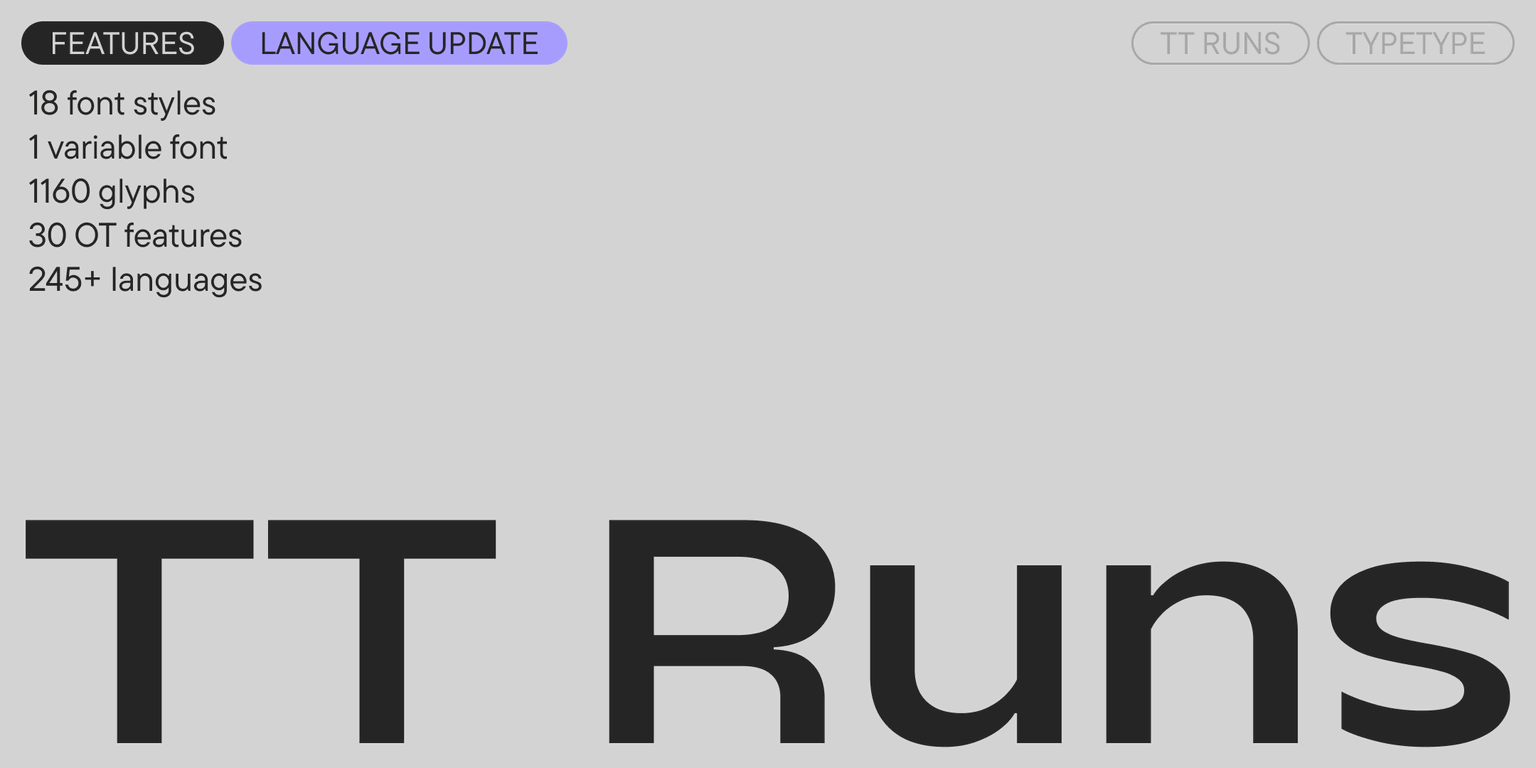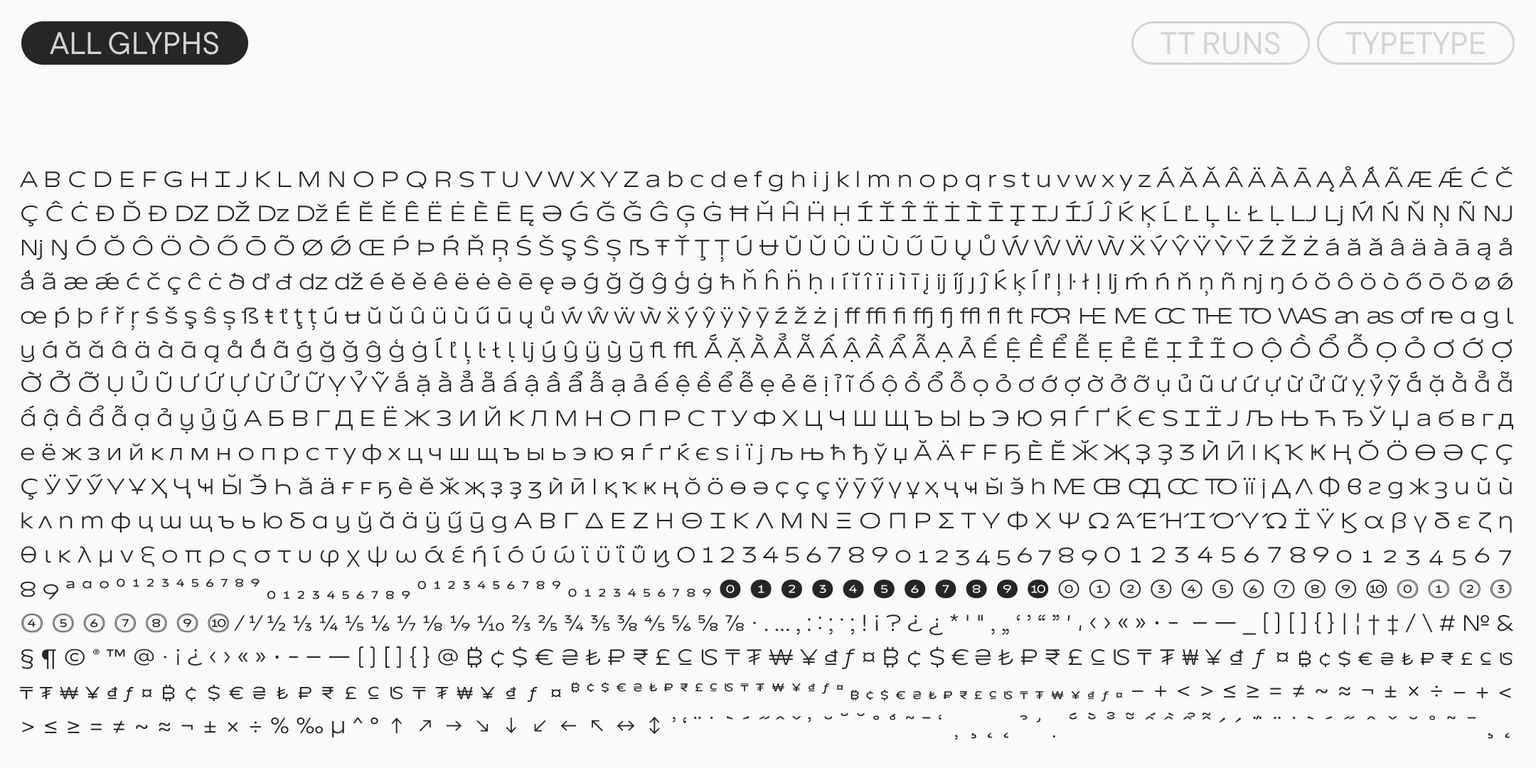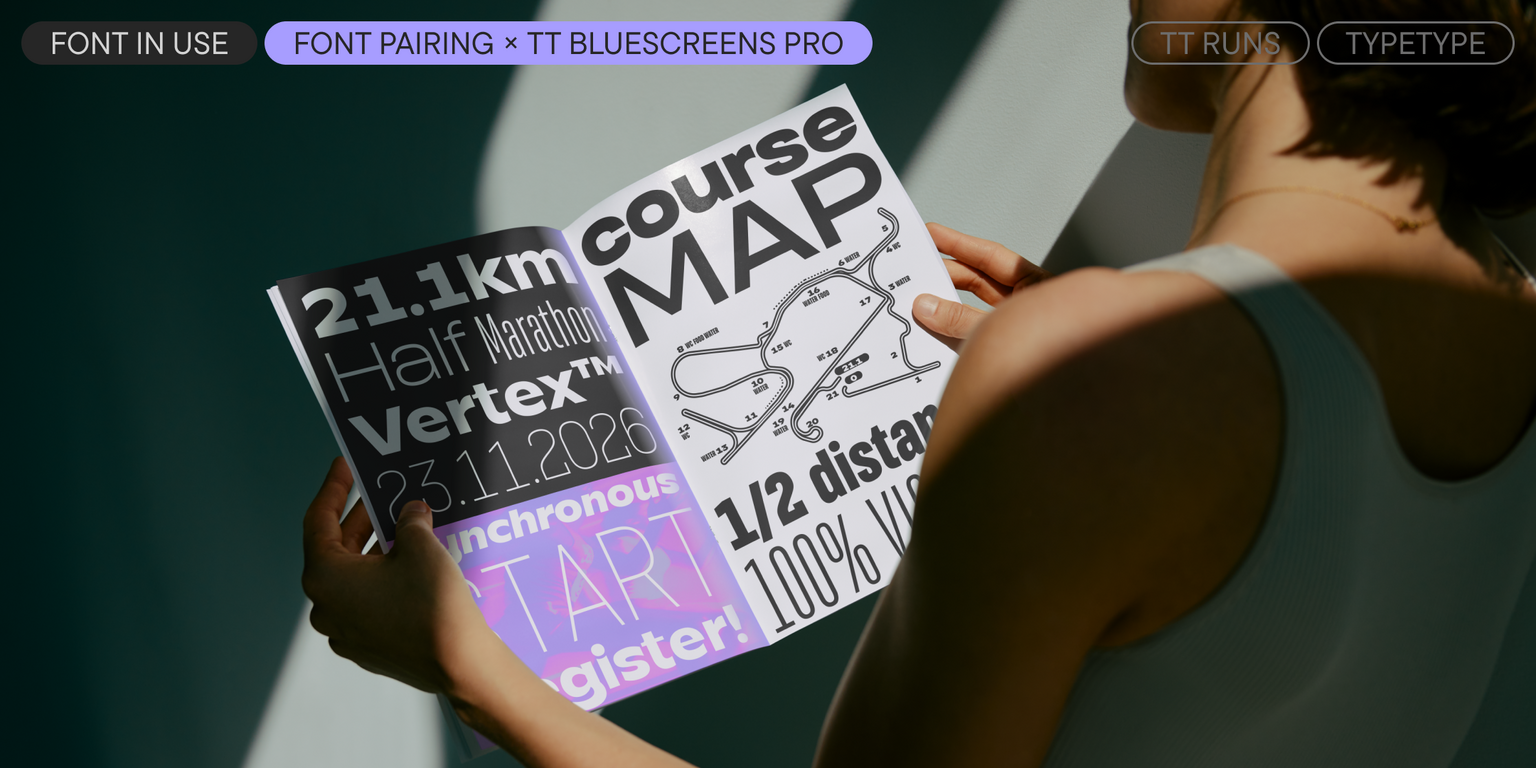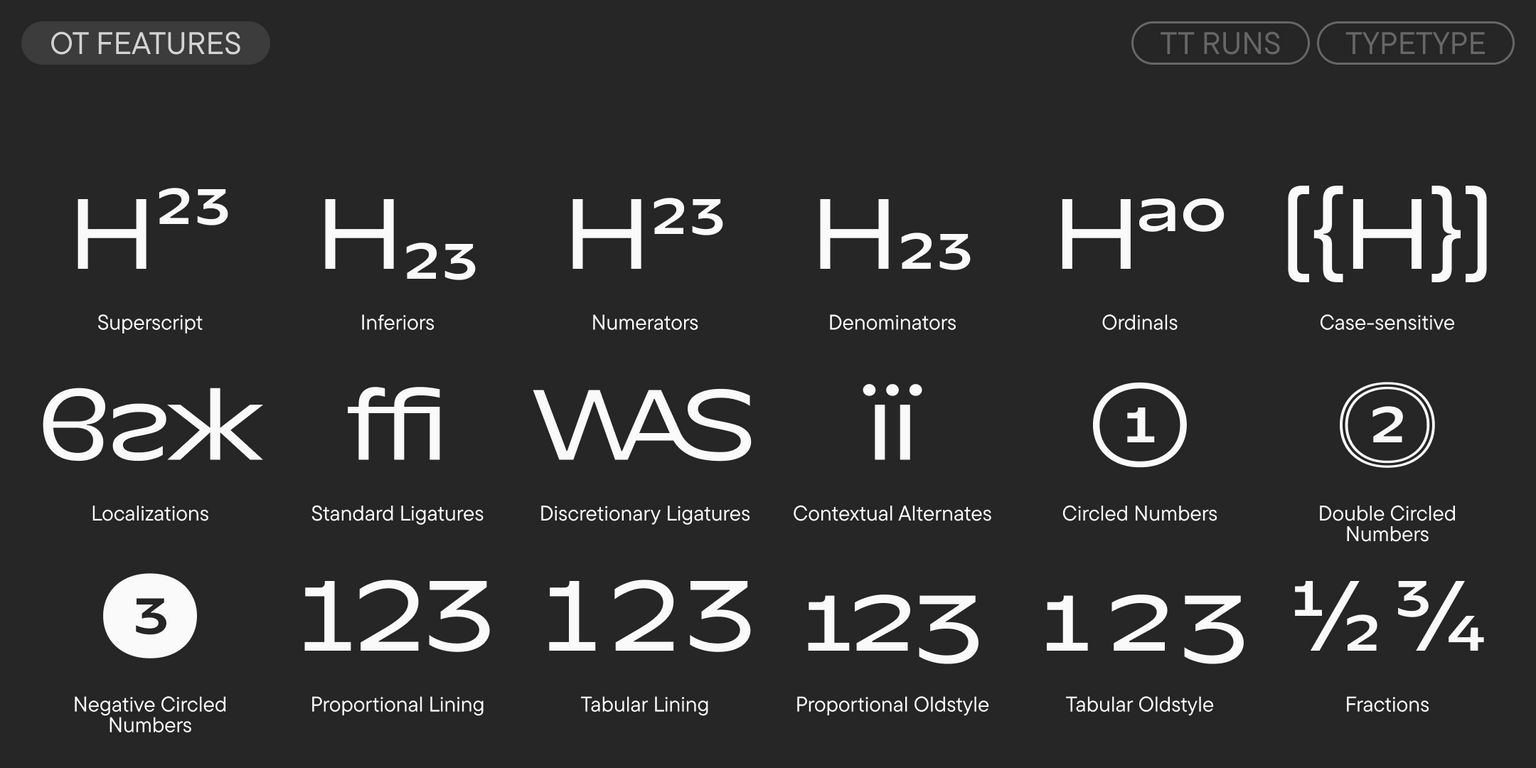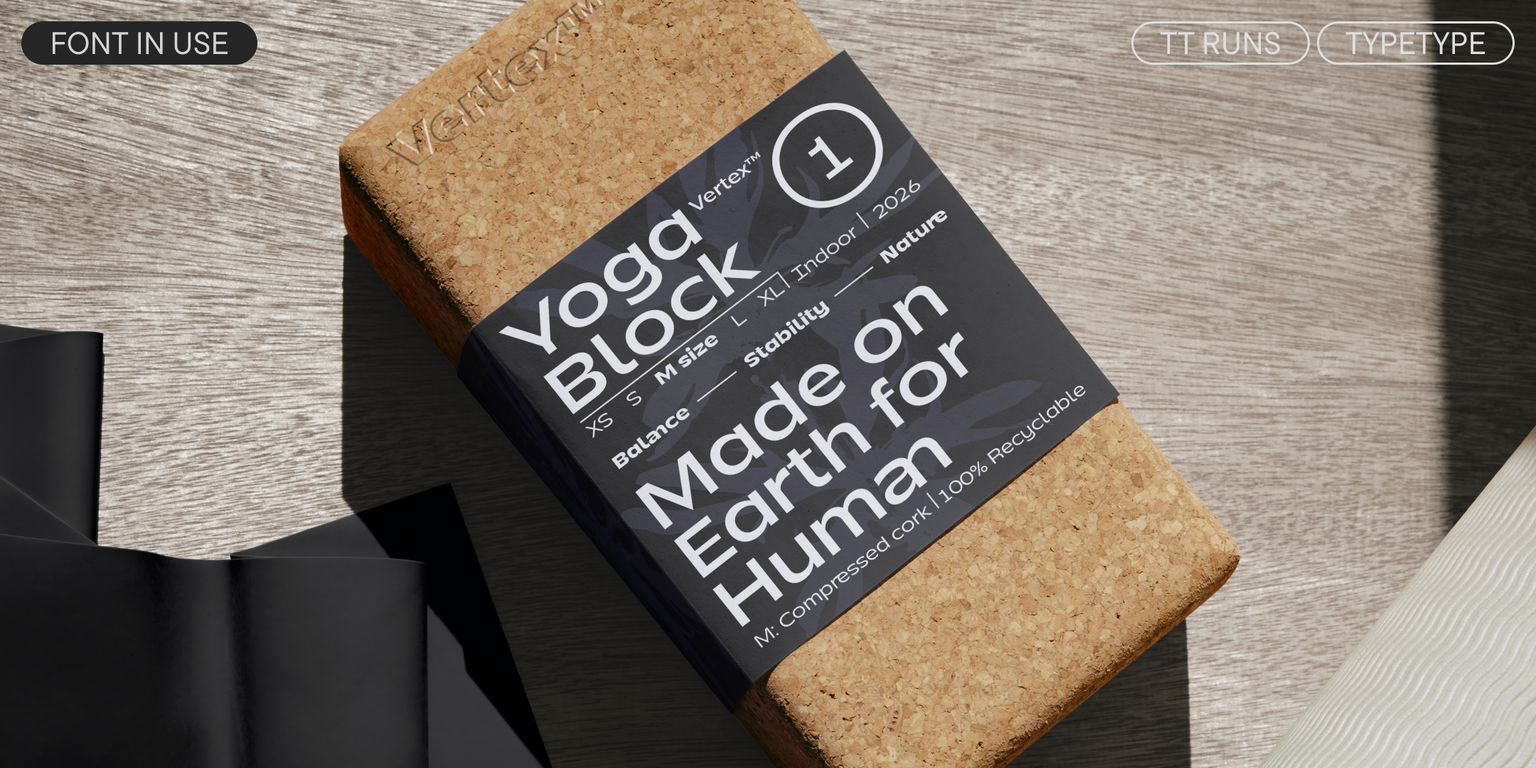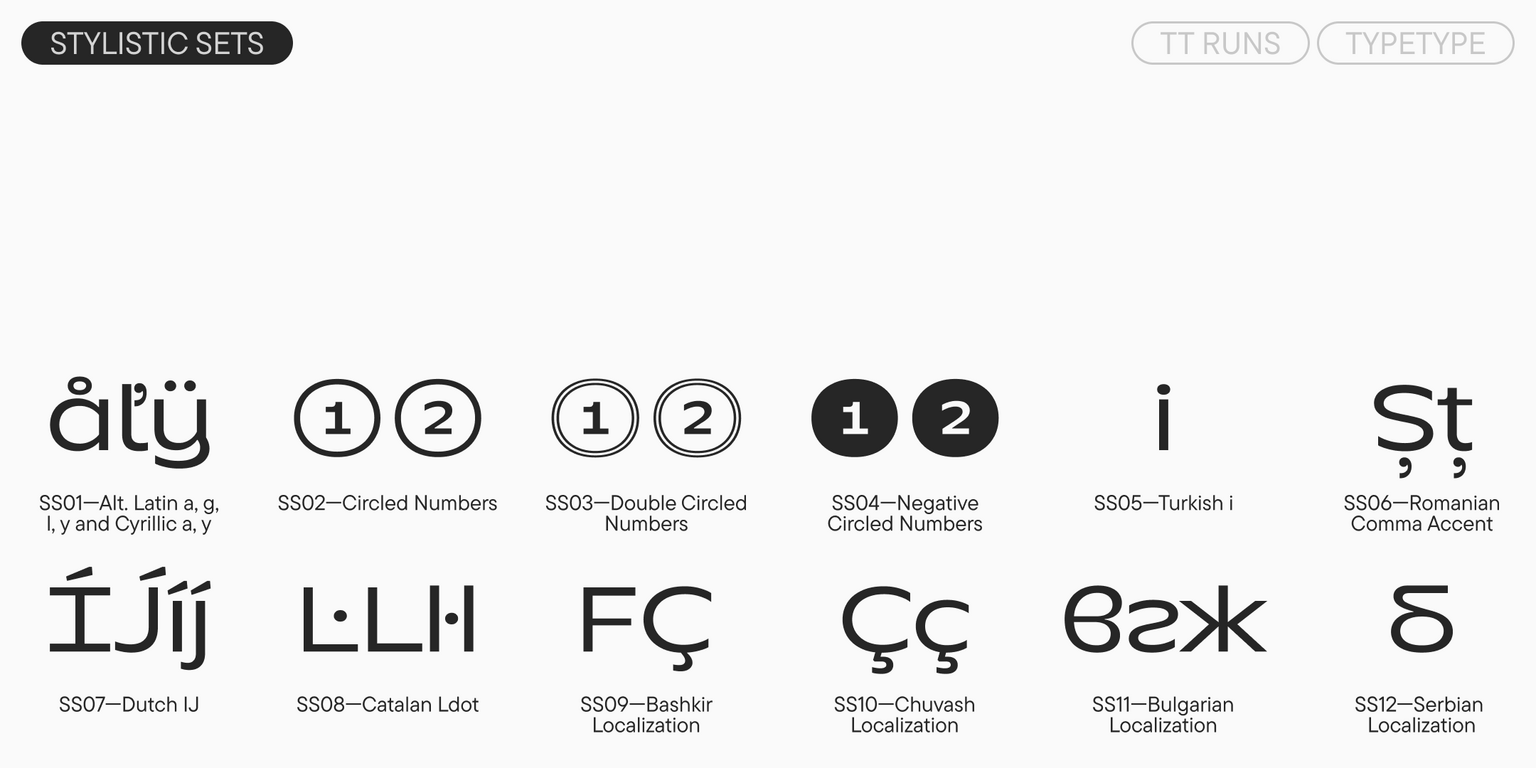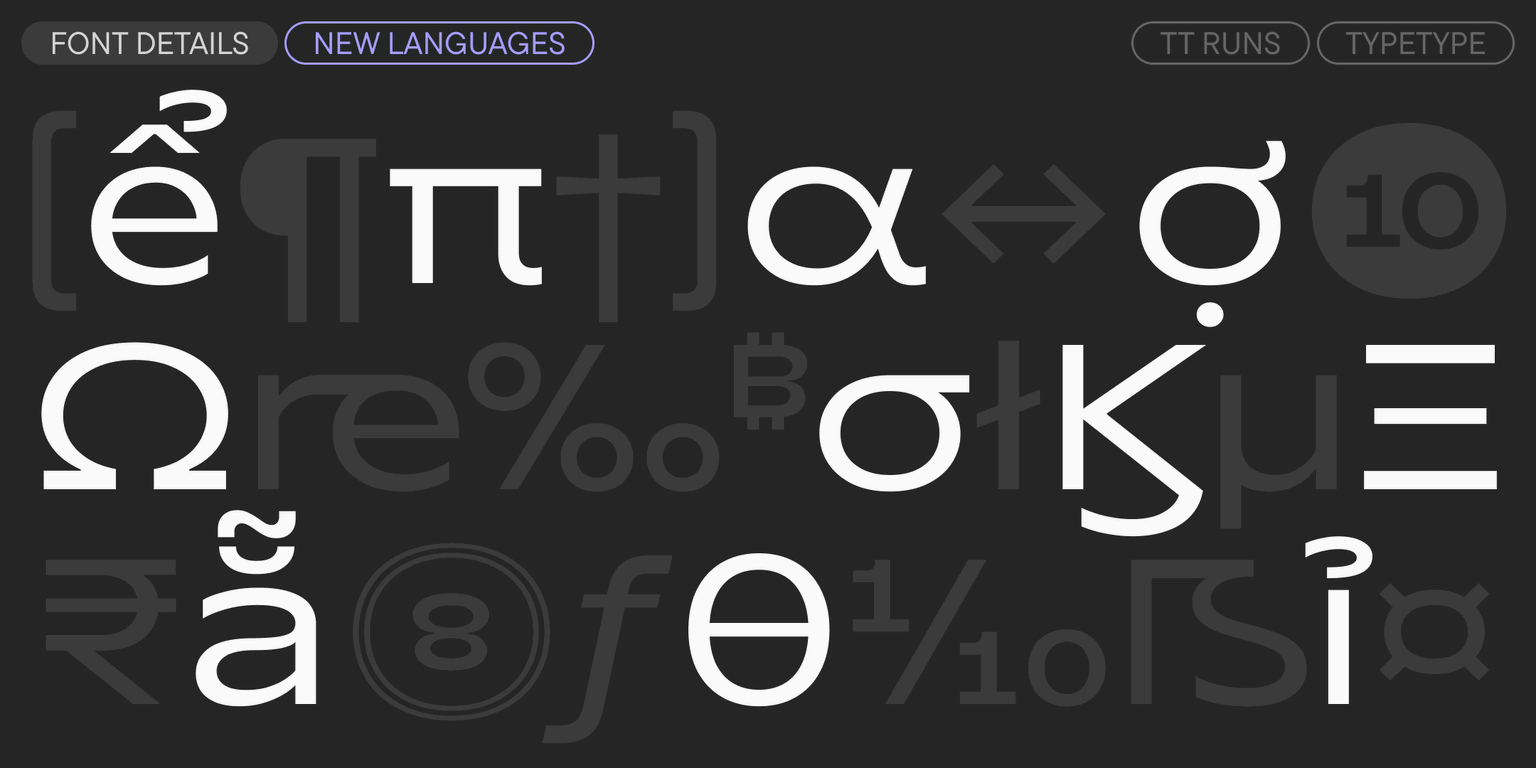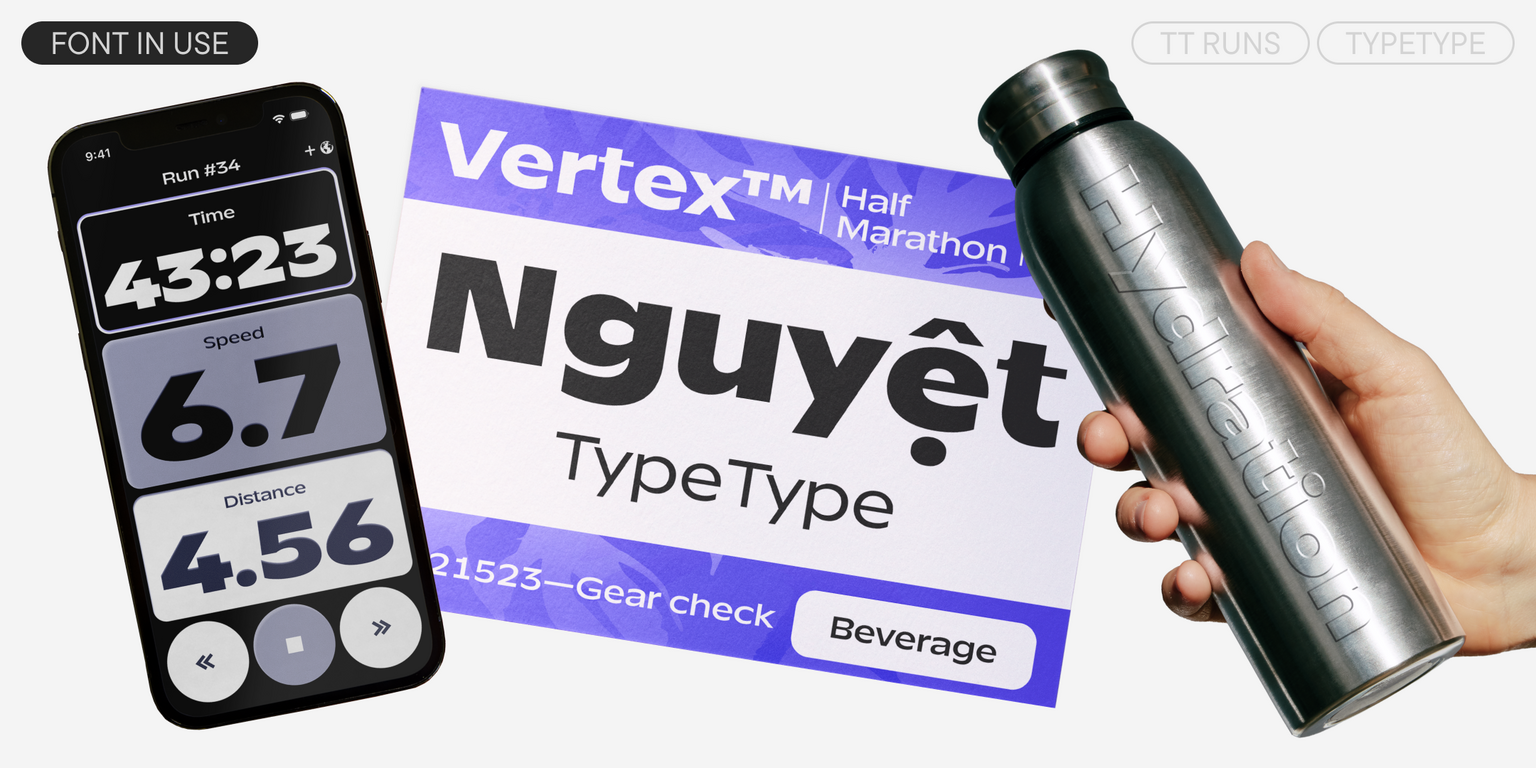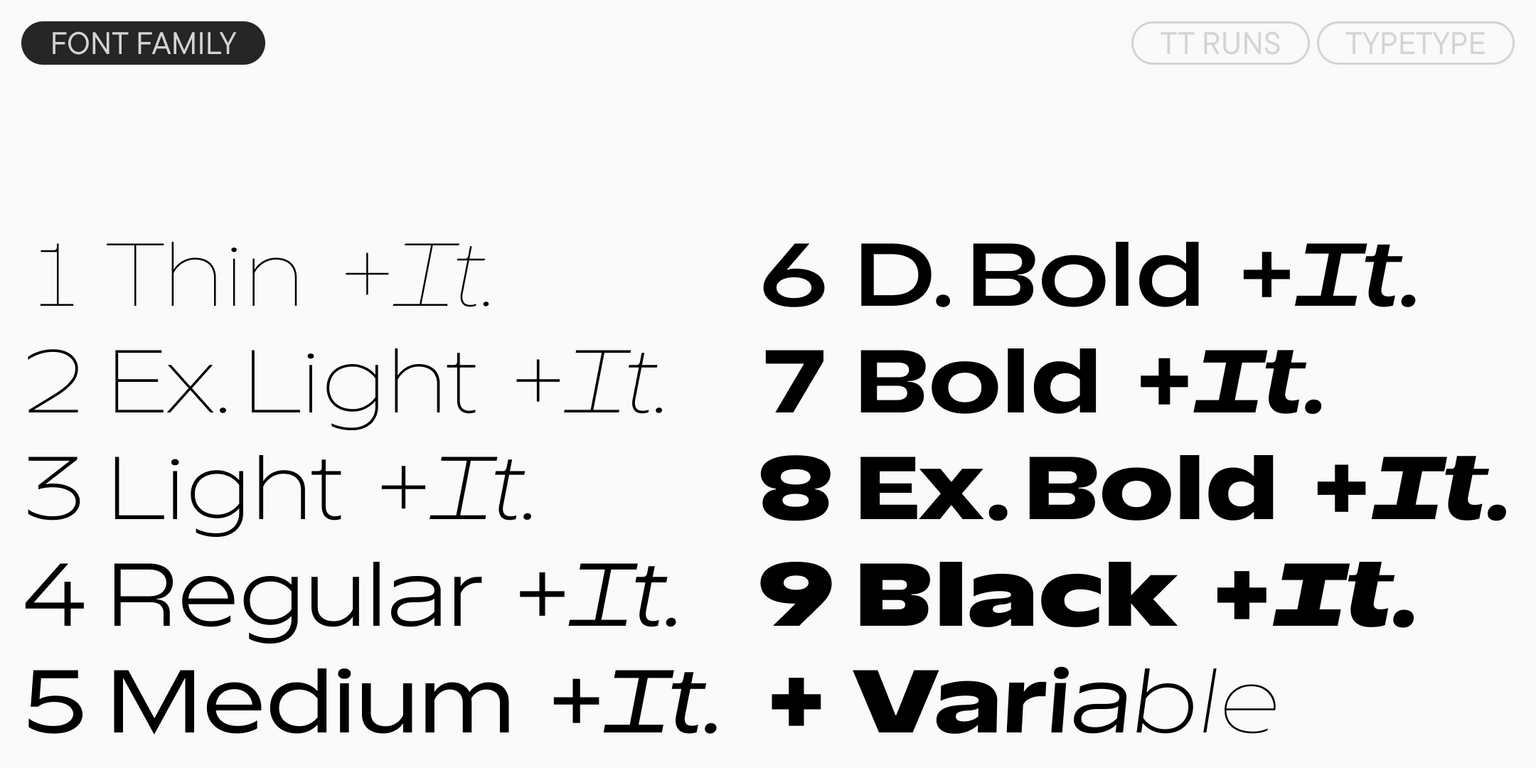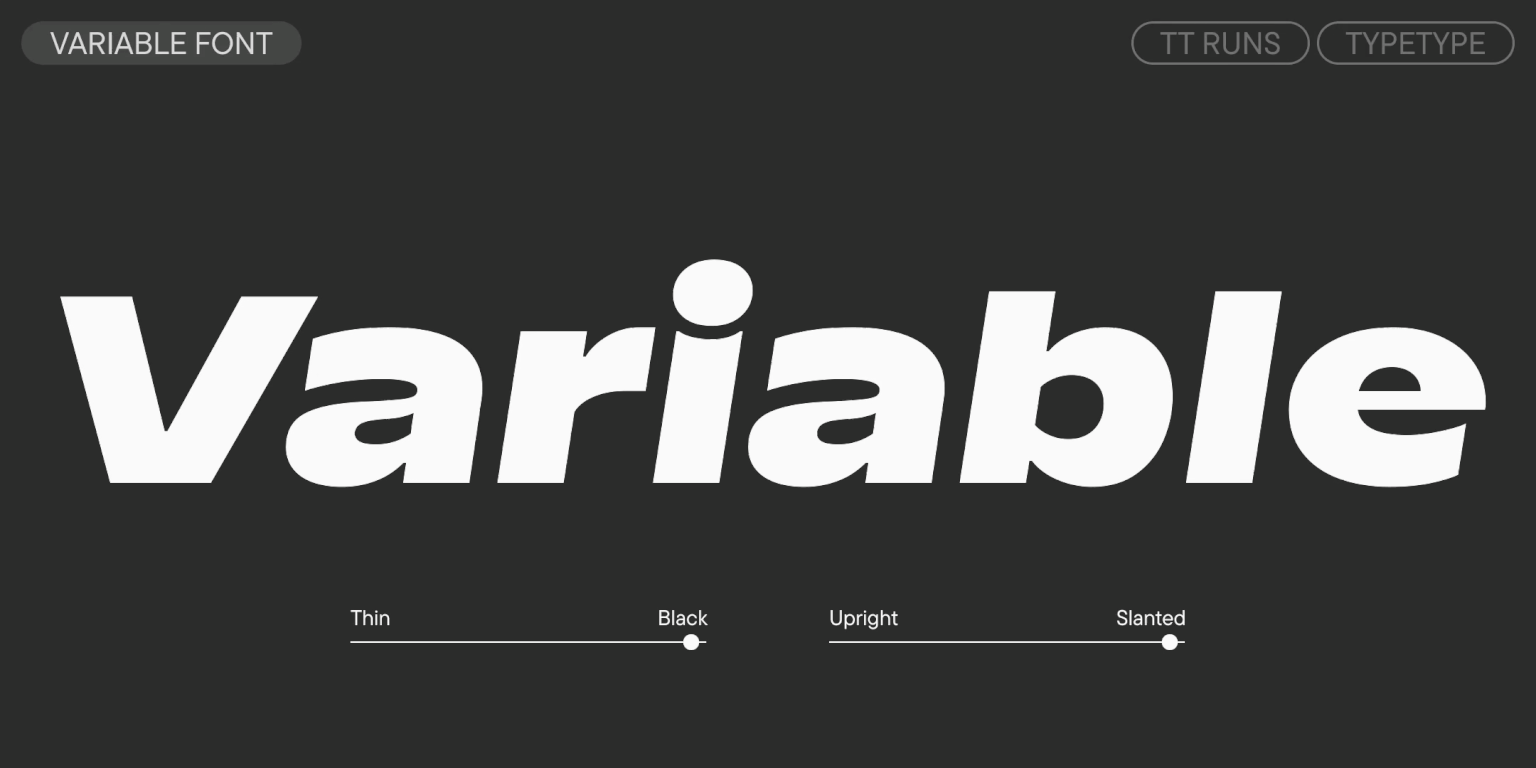
TT Runs
TT Runs is a wide sans serif with unconventional proportions. It is designed specifically for sports branding with dynamic energy and confidence.
TT Runs—irregular proportions in a bright display fontfamily
The TT Runs project started with a fairly simple idea—to create a wide modern sans-serif, which will reflect the sporty style and look good on sportswear. Before proceeding to sketching, we examined the theme of Olympic venues and their identities, and also traced the evolution of «sports» typefaces through different eras and continents.
A striking feature of the typeface is the inverse contrast of the shape relative to the vertical line
In lowercase characters the reverse contrast is greatly softened and almost invisible
Variable axes
Weight
Slant
240+ Language support
Introducing TT Runs version 3.000!
We’ve updated the font, expanding its capabilities by adding new glyphs and languages.
TT Runs is a wide display sans serif with unusual proportions. This is a font created specifically for the sports industry. Before starting its development, we conducted detailed research on Olympic venues and their identities, and also analyzed current sports brands. All this was done to create a unique, stylish, and modern font suitable for the sports sector (and beyond)!
TT Runs features wide and unusual proportions and a contrast that differs from the classic style. Because of this, the character shapes look unfamiliar and appear “inverted.” This is evident in the bold styles and is especially noticeable in the figure 8, letters “K”, “Ж”, “R”, “Сс”, “Ss”, “Зз”, and others. This solution lends the font originality and dynamism. Other design features include the straight leg of “R”, non-standard legs of “Лл”, a sharp “M”, an unusual “G”, “compressed” diacritics in the bold masters, and several unusual ligatures.
The typeface includes a variable font that changes along two axes—slant and weight. In the updated version, we added new glyphs—specifically, minuscule currency symbols, and the Som, Sum, and Dong currencies for all cases. Support for three new languages also appeared: Urum, Greek, and Vietnamese. We also partially updated kerning and hinting.
TT Runs is an expressive font that fits perfectly into sports-themed projects: it looks aesthetic on sportswear and casual clothing and is suitable for printing on any material. At the same time, the typeface is also excellent for other modern projects: after the update, its sphere of application has significantly expanded. Thanks to its proportions, the font attracts attention and works effectively where accents need to be placed.